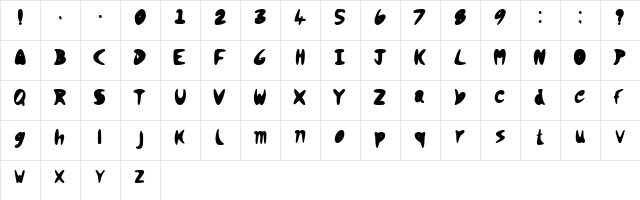
GOOFY Regular
Design Context for GOOFY Typeface
GOOFY is a composed and adaptable typeface that performs quietly and consistently across a wide range of design contexts.